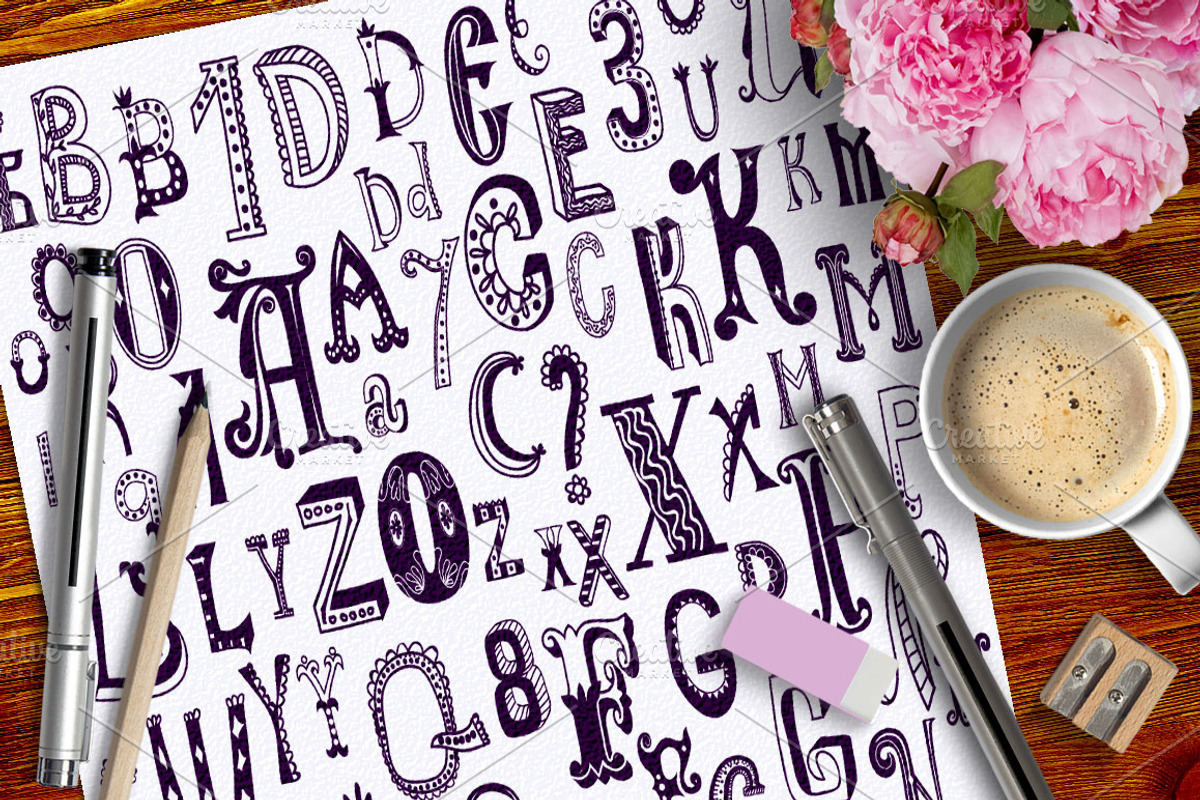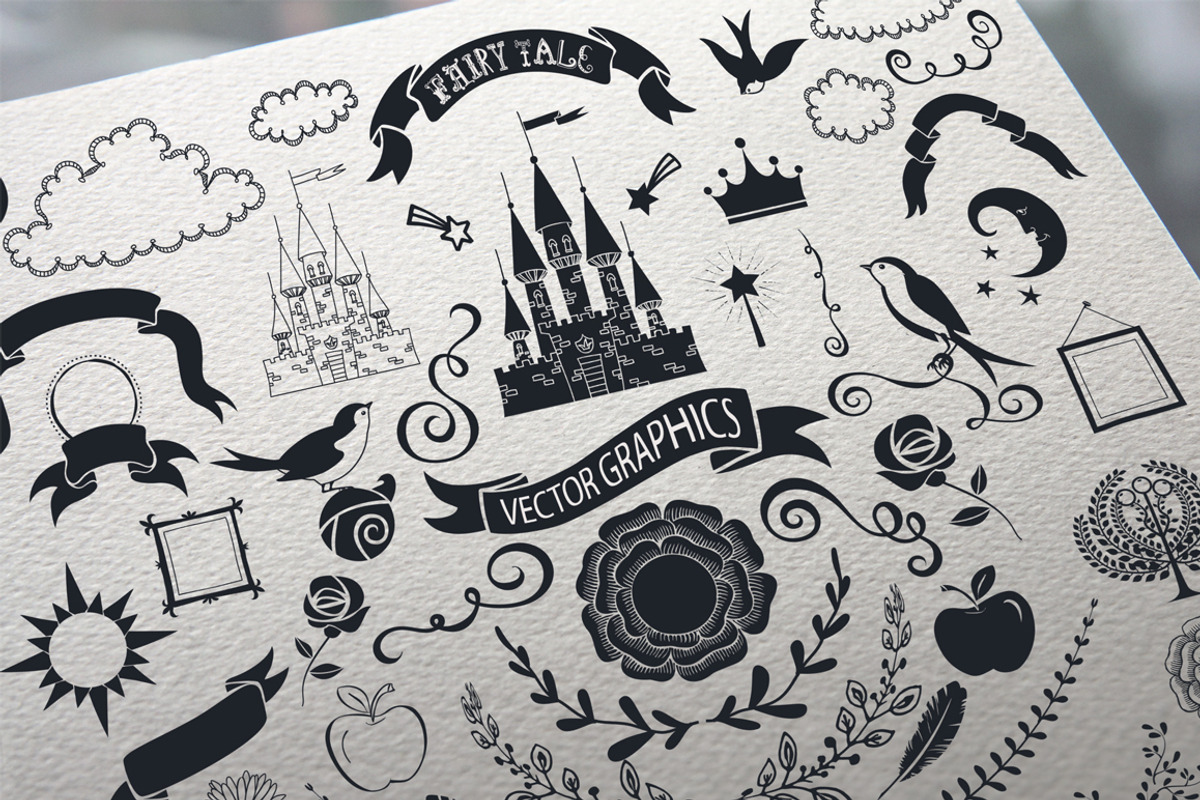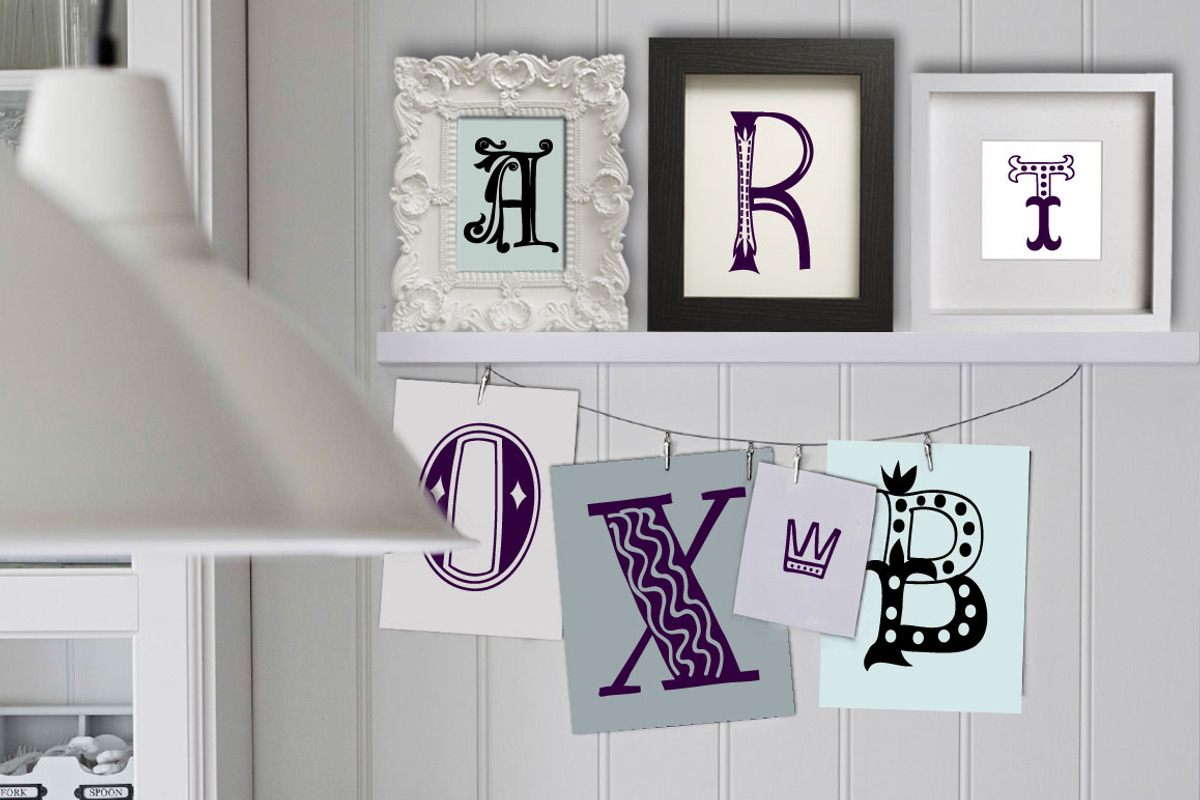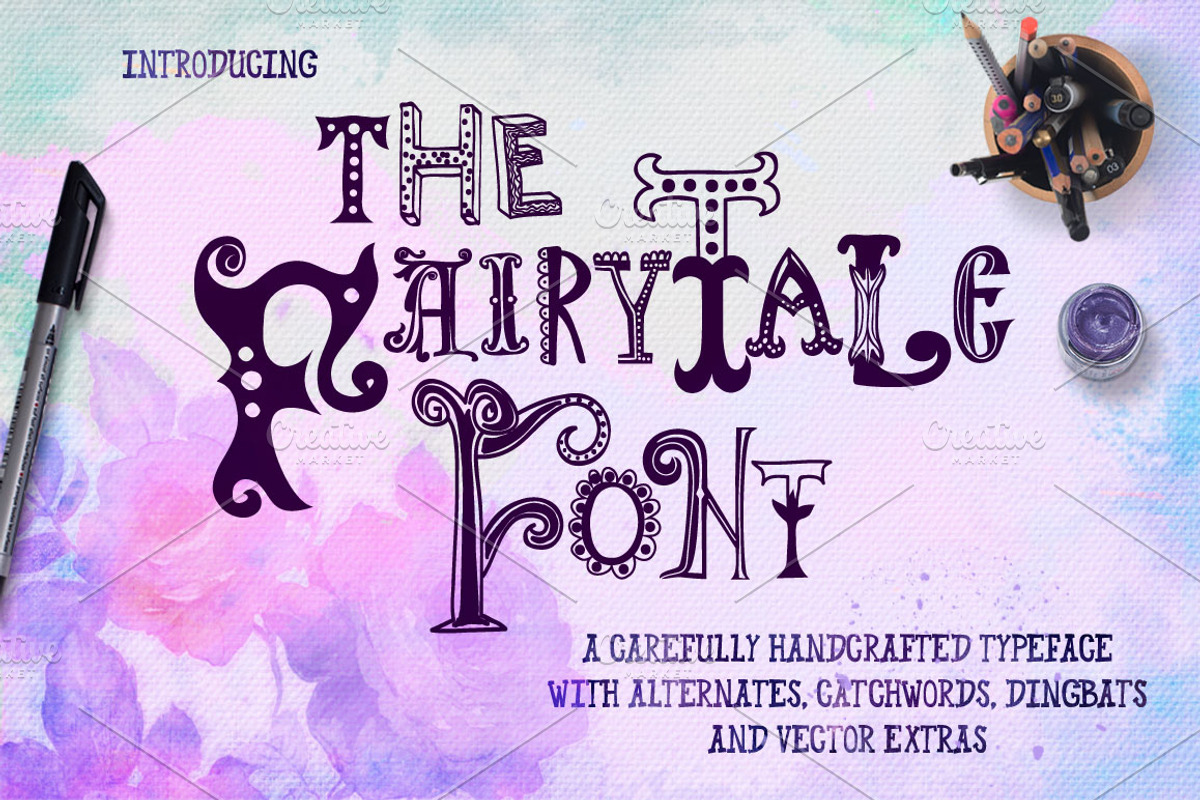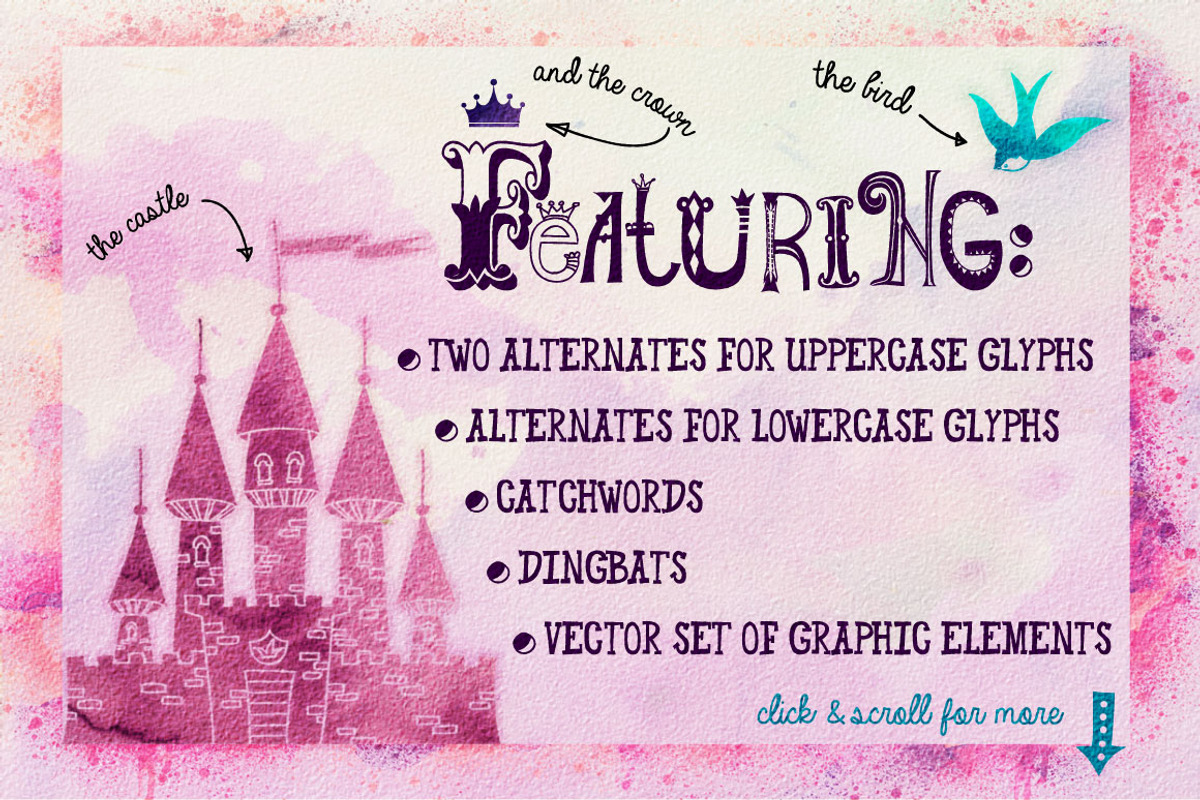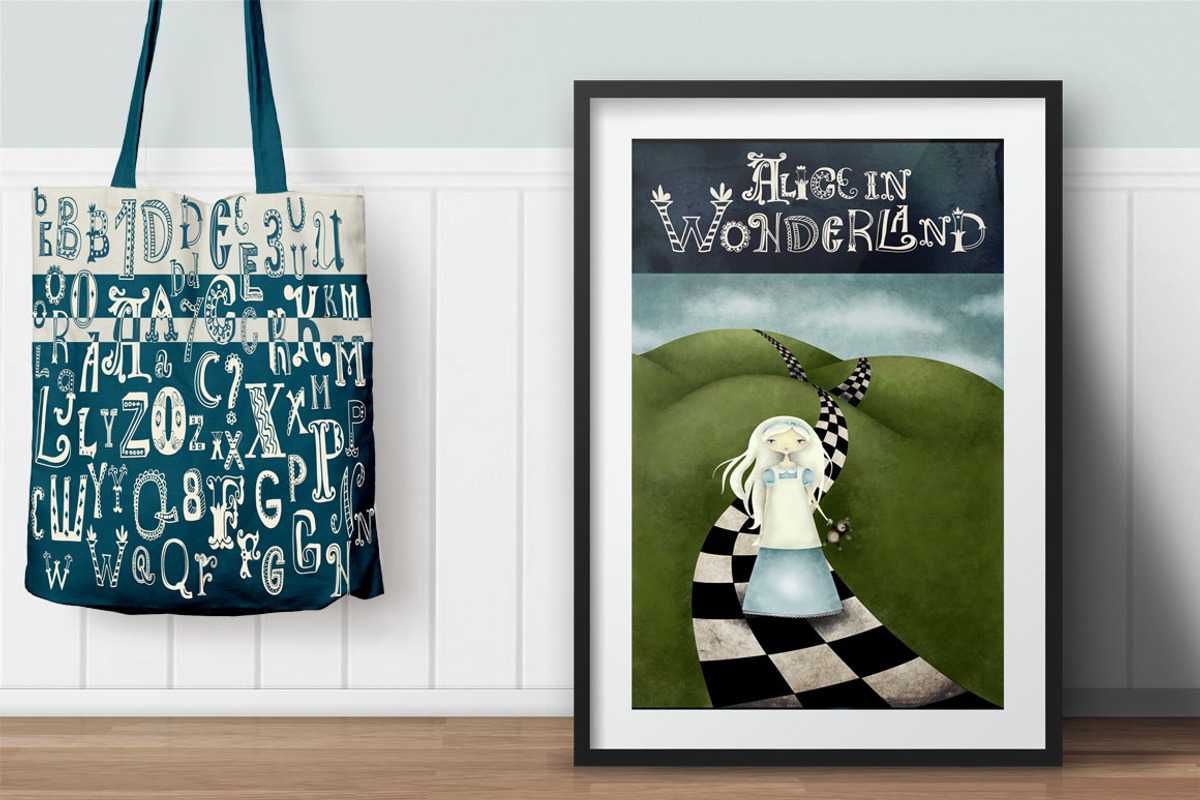
Fairy Tale Font with Extras
Fairy Tale Font with Extras by a Blond Moment is a font selected for branding, posters, packaging, typography.
- Introducing The Fairy Tale Font with Extras, a whimsical hand drawn font with two alternates for uppercase glyphs, one for lowercase glyphs,
- So I drew the glyphs as needed, along with the storybook characters.
Why Fairy Tale Font with Extras is worth a look
Fairy Tale Font with Extras by a Blond Moment fits naturally into Branding, posters, packaging, typography.